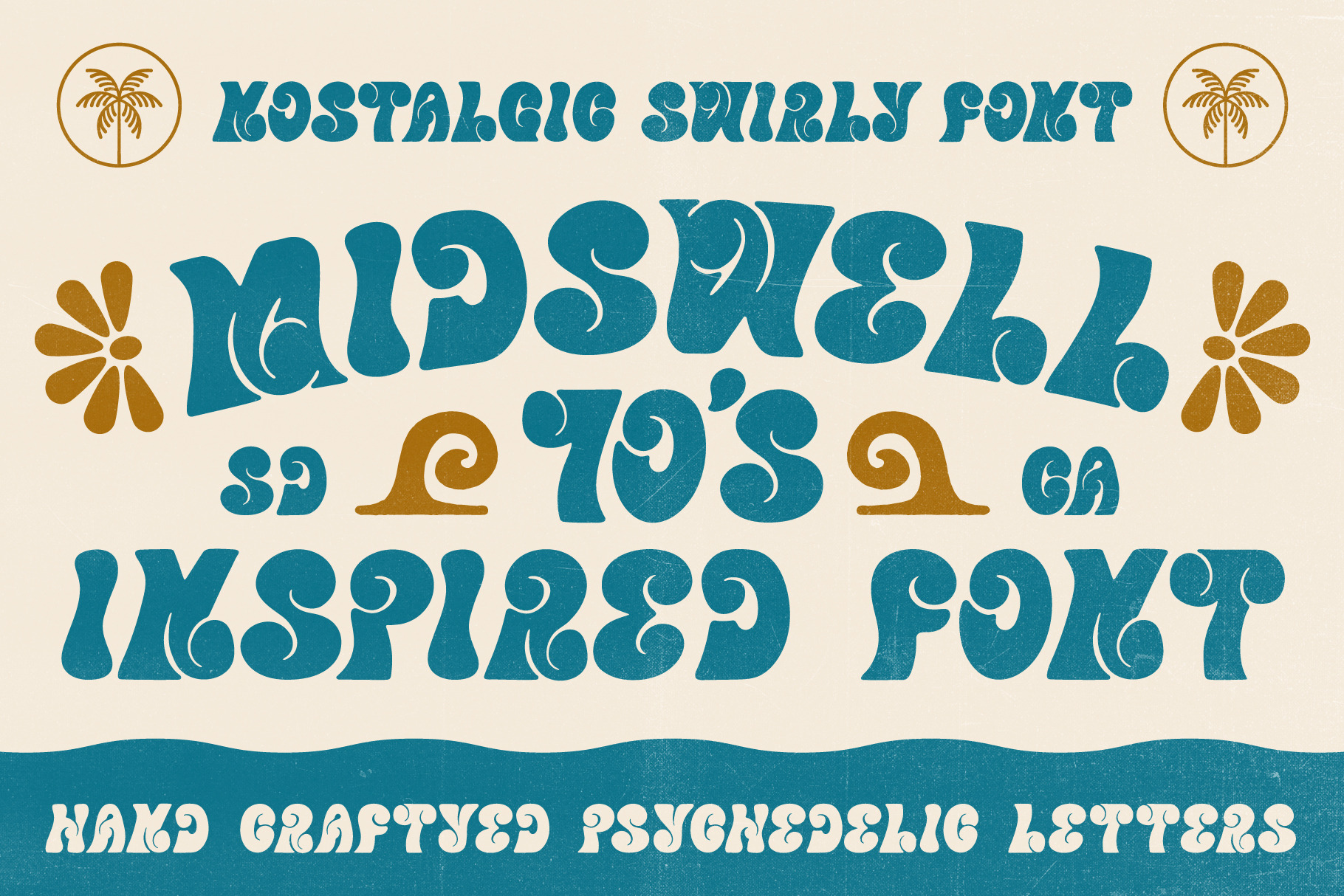
Midswell 70's Typeface | Retro Font
The Midswell Typeface is here! A high-contrast, 70’s-inspired display font that features hand drawn, curvy letterforms for an organic, natural feel. Perfect for headlines, posters, logo marks and more.